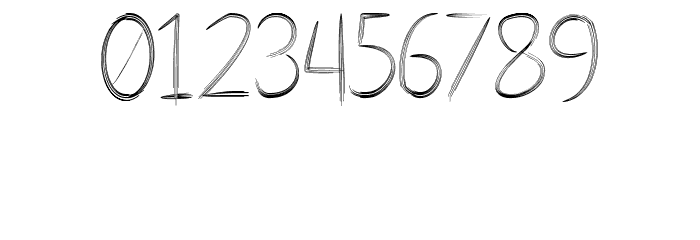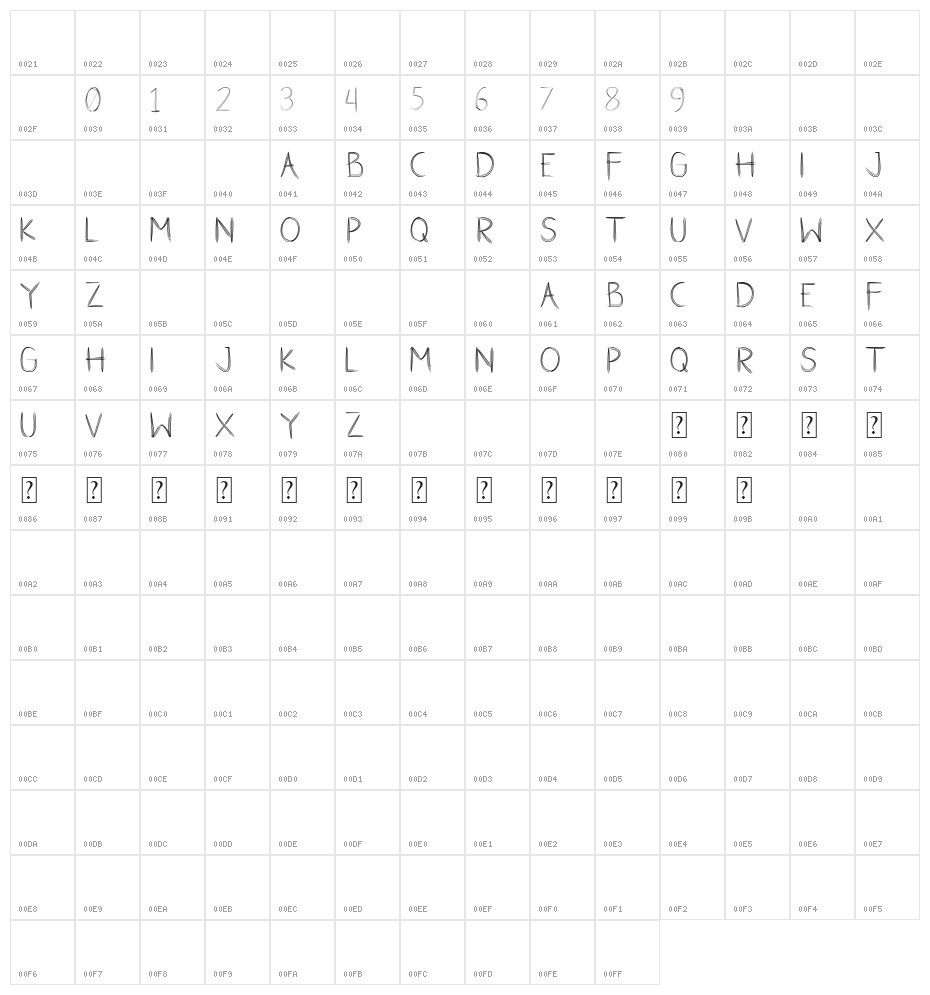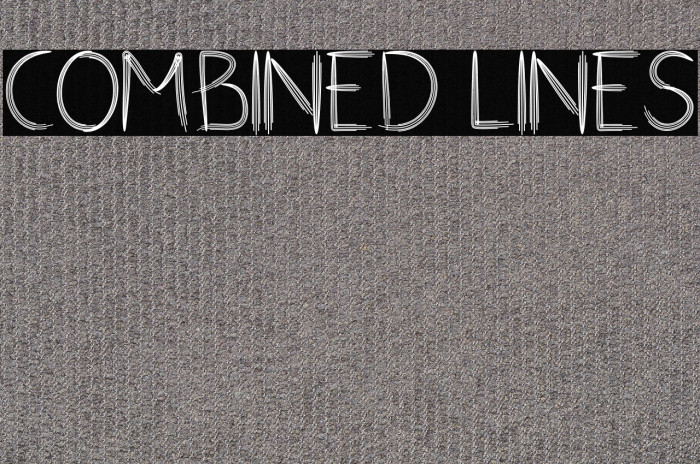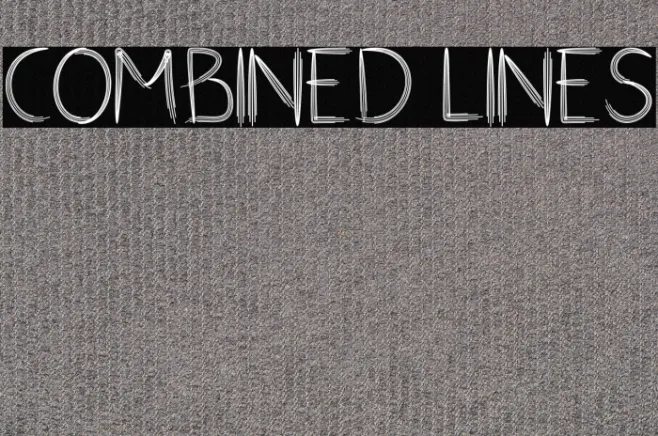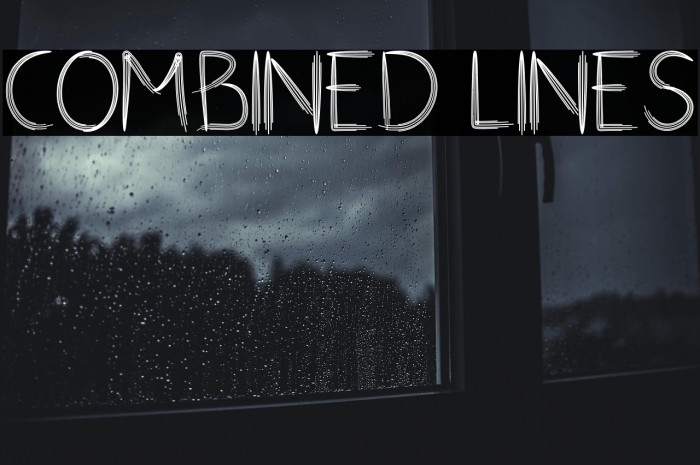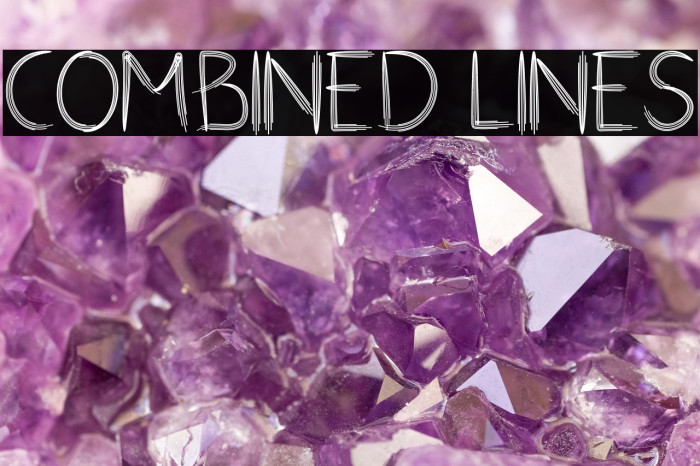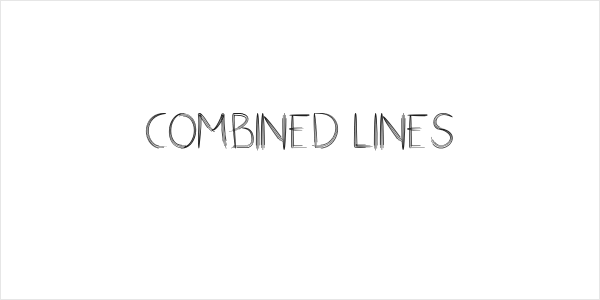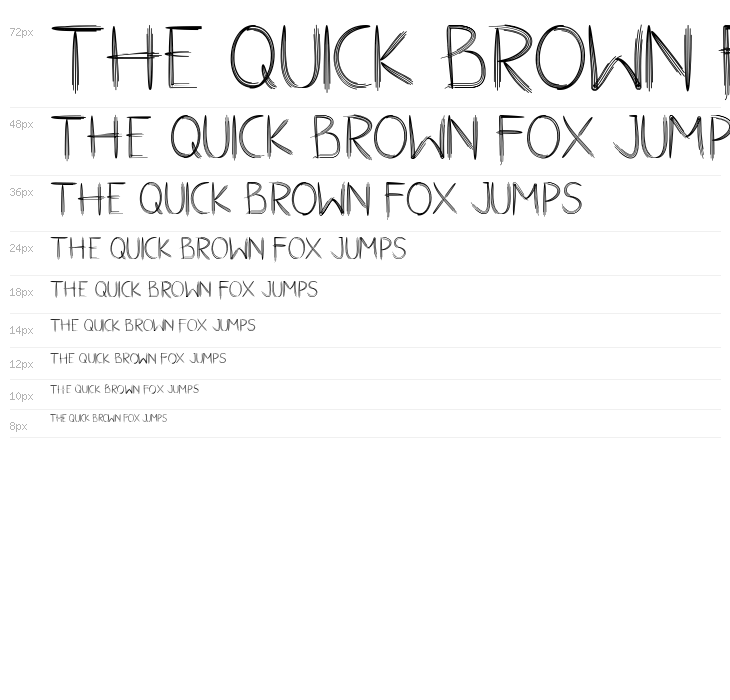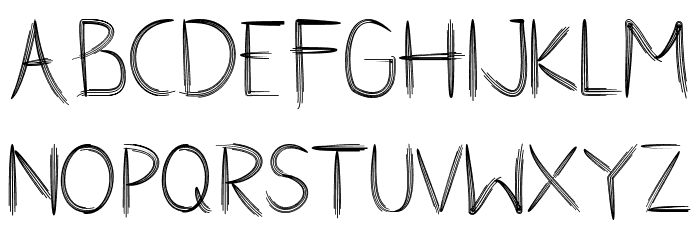
Combined Lines Font
Combined Lines Description
This font features a unique, hand-drawn style with a sketch-like appearance. Each character is composed of multiple overlapping lines, giving it a textured and dynamic look. The strokes vary in thickness, adding to the artistic and informal feel. The uppercase and lowercase letters maintain a consistent style, with a slightly irregular form that enhances its handcrafted aesthetic. The numbers and special characters follow the same design principles, ensuring a cohesive appearance across all glyphs. This font is ideal for projects that require a personal touch or a creative flair.
| Proposed Projects | Ideal for creative projects such as posters, invitations, and artistic branding that require a personal and artistic touch. |